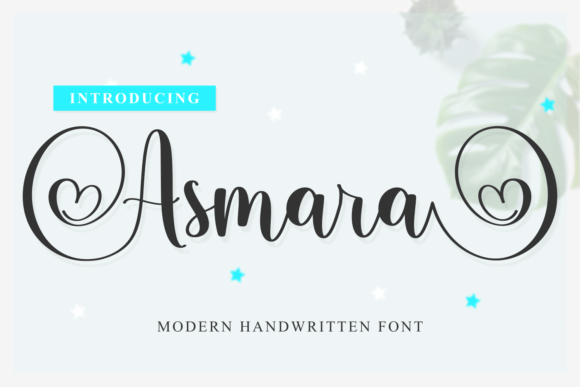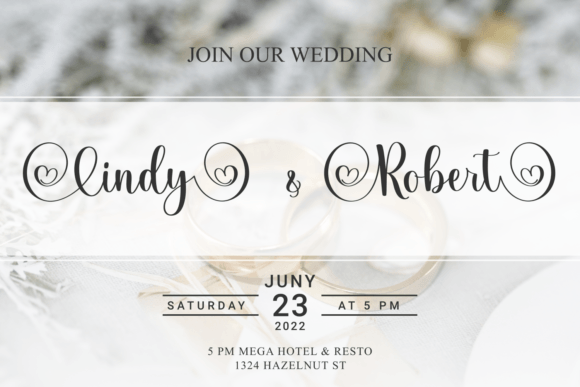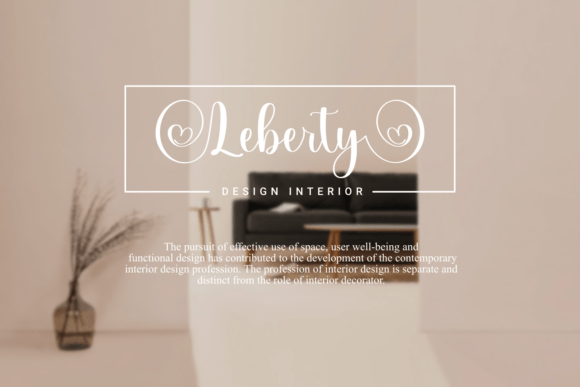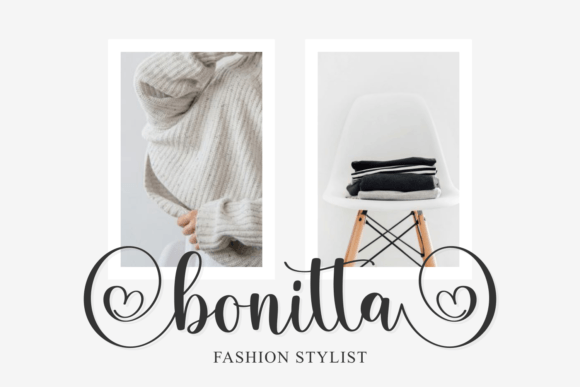
Asmara Font: Elegant Script for Wedding Invitations & Modern Branding
About the Asmara Font
Let us introduce you to Asmara Font, where timeless design meets modern craftsmanship. Introducing Asmara, a charming script font – a perfect blend of simplicity and elegance. With clean, modern characters and heart-shaped swashes, this font adds a touch of romance to your designs. Ideal for wedding invitations, cards, and more, it seamlessly combines versatility and timeless appeal. Elevate your projects with this delightful and captivating script font!
Asmara’s elegant yet approachable style makes it a strong choice for branding projects requiring a touch of sophistication, particularly for businesses in the fashion, beauty, or wedding industries. It excels in headlines, short text blocks on invitations or packaging, and even social media graphics. However, its script nature makes it unsuitable for body text or UI elements where readability is paramount. Long paragraphs set in Asmara would be difficult to read.
Consider pairing Asmara with a clean sans-serif like Montserrat for a modern feel, or a classic serif like Garamond for a more traditional look. For a playful contrast, a geometric sans-serif such as Futura could be effective. These pairings provide a balance, allowing Asmara’s graceful script to shine without overwhelming the design.
Asmara projects a personality that is both romantic and refined, conveying a sense of understated luxury. Its charm stems from the delicate balance between its modern simplicity and the expressive flourishes of the heart-shaped swashes.
Asmara Font Usage Examples
Asmara Font Example